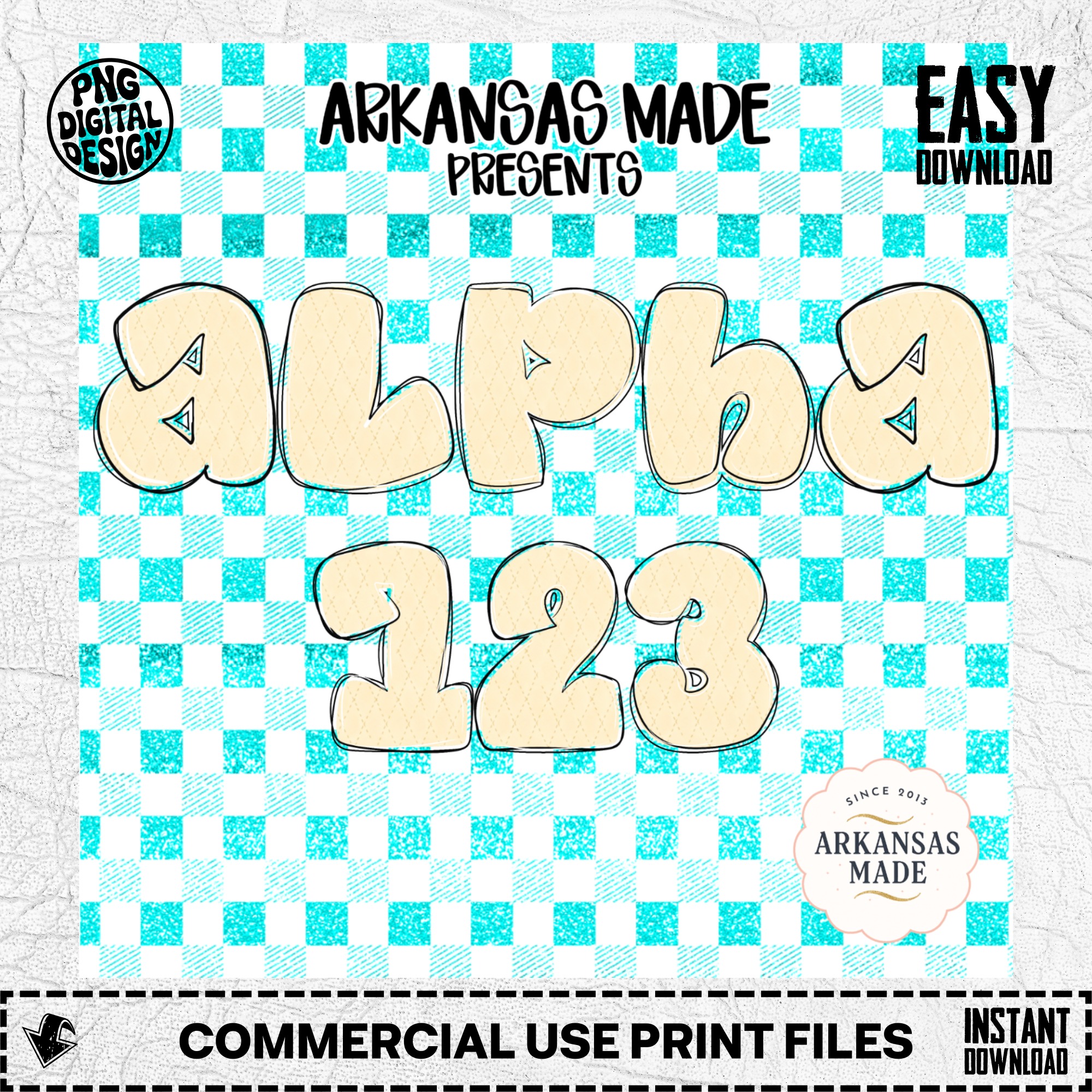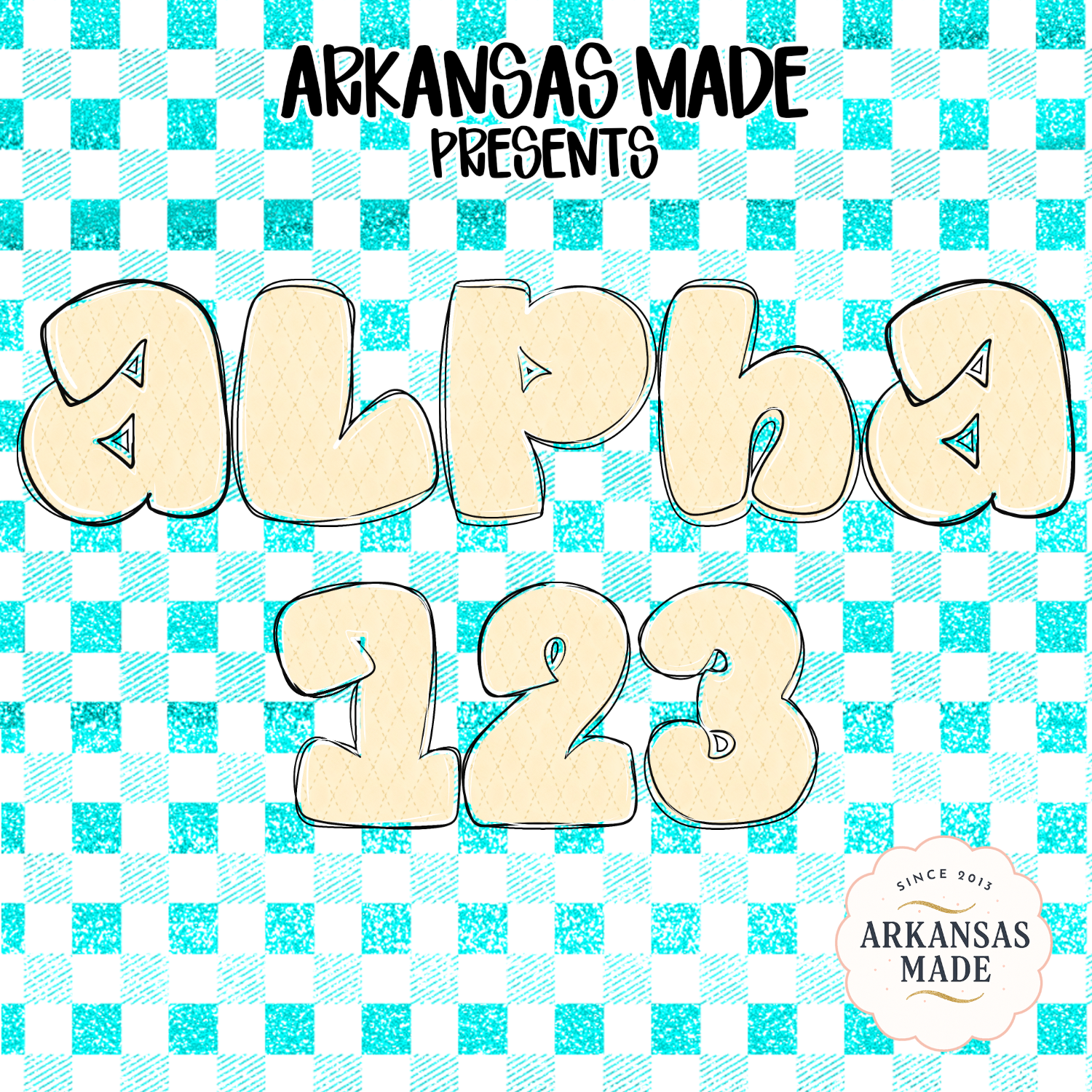
Digital Alphabet PNG Bubble Letters, Quilted Doodle Font, Hand Drawn 123 Numbers, Commercial Use Sublimation Design Clipart for Crafting DIY
Elevate your craft projects with these charming digital alpha PNG bubble letters and coordinating 123 numbers, perfect for sublimation and DIY designs! This playful set features a unique quilted overlay and sketchy hand-drawn outline effect, adding a whimsical touch to any creation. Ideal for crafters, teachers, and small business owners, these versatile design elements are a must-have for personalizing gifts, creating educational materials, or adding a fun flair to stationery and apparel.